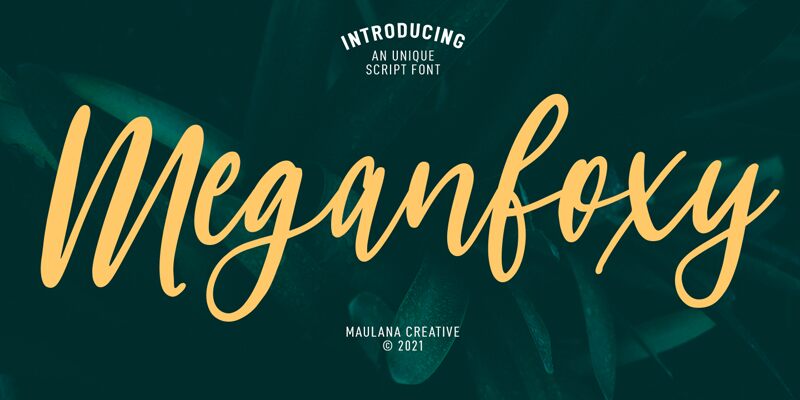
Meganfoxy
Meganfoxy is a light, narrow handwritten font created by MaulanaCreative. It adds a unique and creative flair to any project. Use Meganfoxy for branding, logos, headlines, posters, cards, and more!